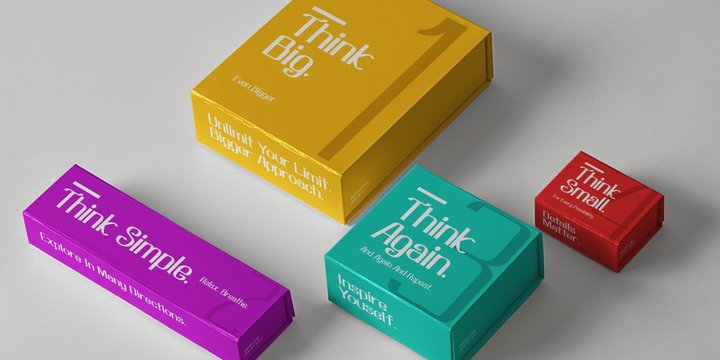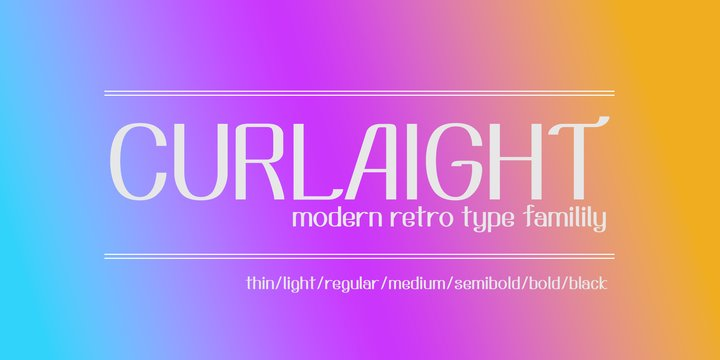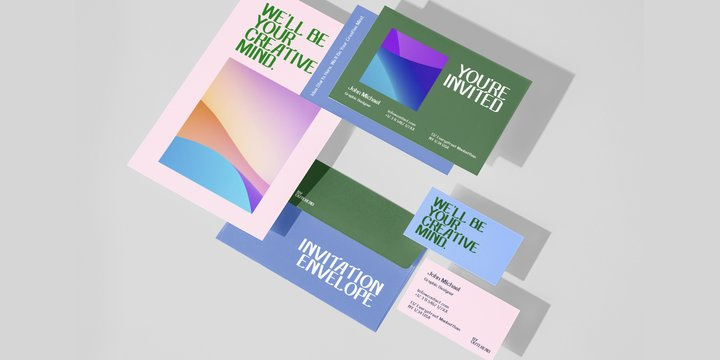
Curlaight Font
Curlaight FontThe type family “Curlaight” has whimsical curly shapes but has some level of uniformity with straight lines and angles. These modern retro feel fonts look great for children’s books, posters, book covers, packaging labels, or even logos like TV and movie titles. Seven weights – thin, light, regular, medium, semibold, bold, and black – are available for your creative projects.